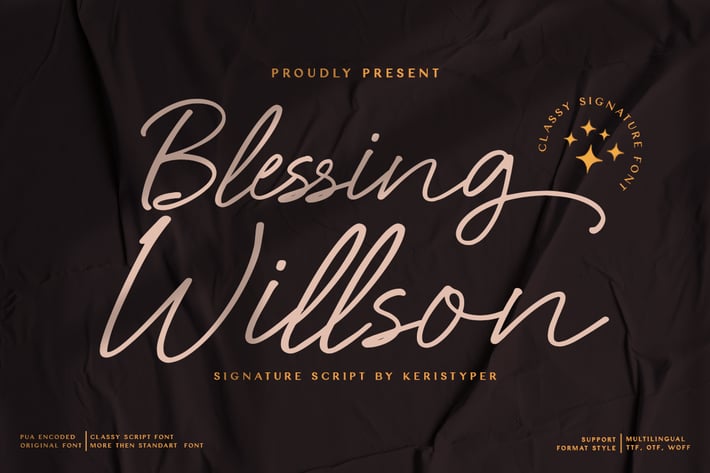
Blessing Willson Signature Script Font
Blessing Willson Signature Script typeface specially made to look so natural. Created with an authentic, handwritten feel. It looks stunning on wedding invitations, thank you cards, quotes, greeting cards, logos, business cards and every other design which needs a handwritten touch.
Standard & Multilingual glyphs